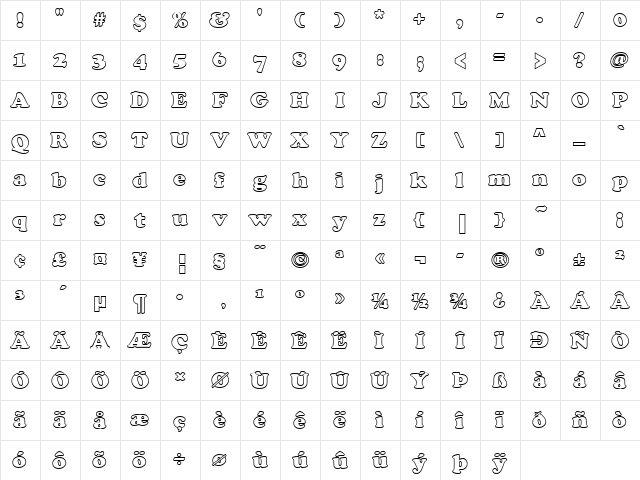
CooperBlaOutP Regular Font Preview
CooperBlaOutP Regular
Design Context for CooperBlaOutP Typeface
CooperBlaOutP offers clean, dependable letterforms without strong stylistic allegiance, making it a practical choice for designers who need flexibility.
Pro Tip: Use CooperBlaOutP in both headline and body roles to test its range before committing to a single application.